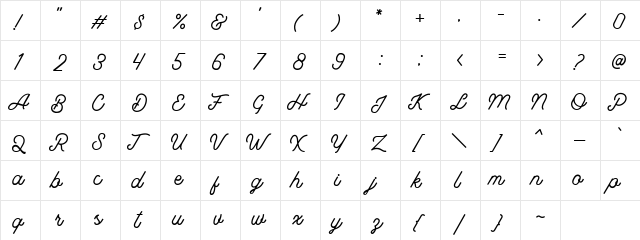
Beautiful Holiday Demo Regular
Design Context for Beautiful Holiday Demo Typeface
Beautiful Holiday Demo takes a measured approach to typography — its balanced proportions and neutral character make it a reliable workhorse for both digital and print work.